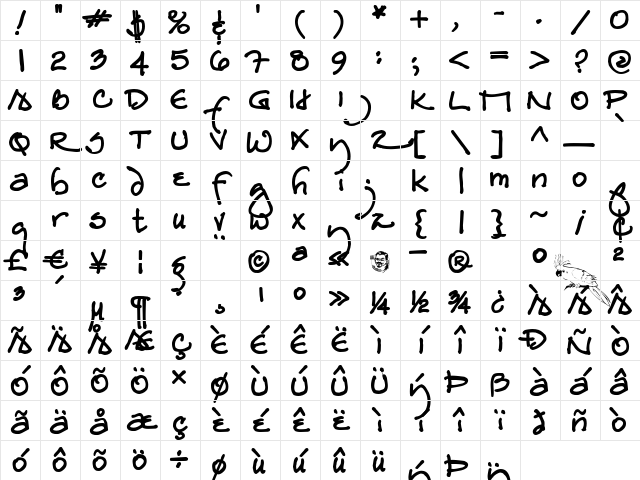
RedstarBold Regular Free Font
RedstarBold Regular
Design Context for RedstarBold
RedstarBold is a composed and adaptable typeface that performs quietly and consistently across a wide range of design contexts. Its bold stroke weight gives it real presence on the page.